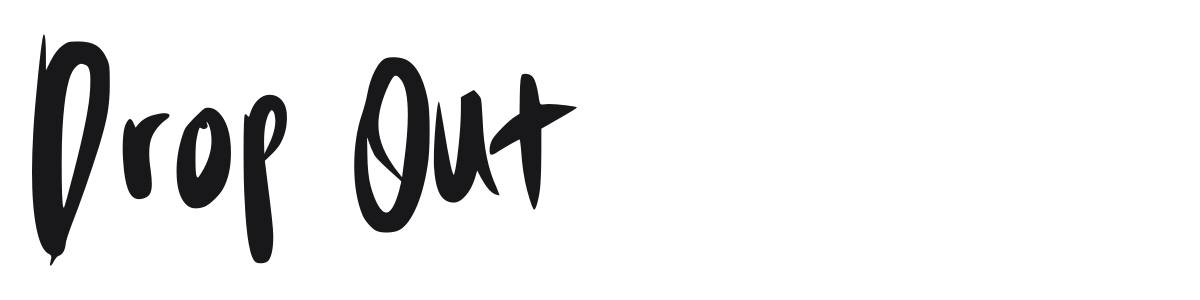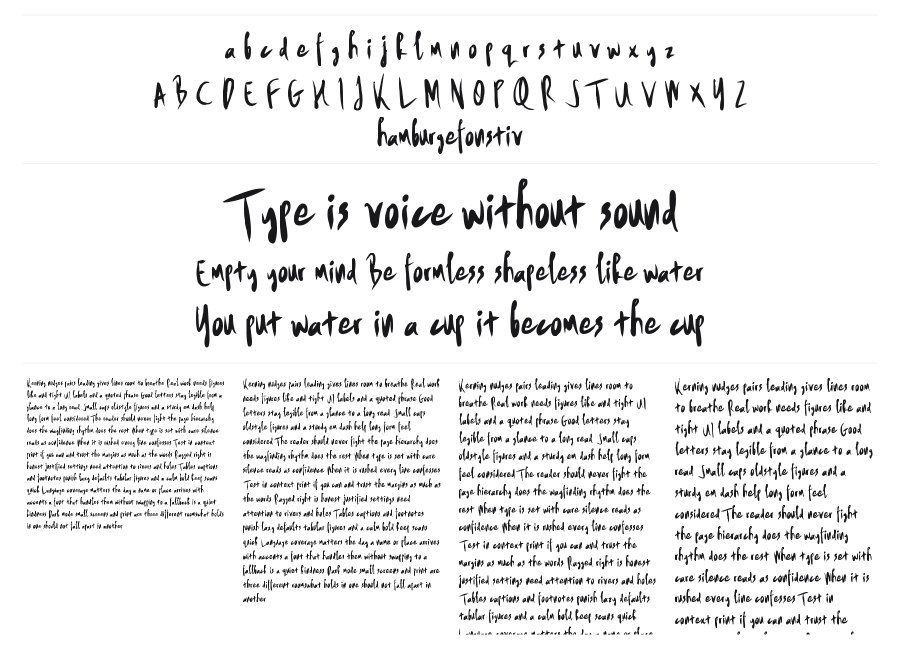
Drop Out
by Basedon Studio
Drop Out is a bold brush script with a loose, hand-painted energy and irregular stroke rhythm. Each character feels quickly drawn, with rough terminals and casual connections that keep it from feeling polished or corporate. It carries the kind of expressive weight that works well on concert posters, streetwear, and food packaging.